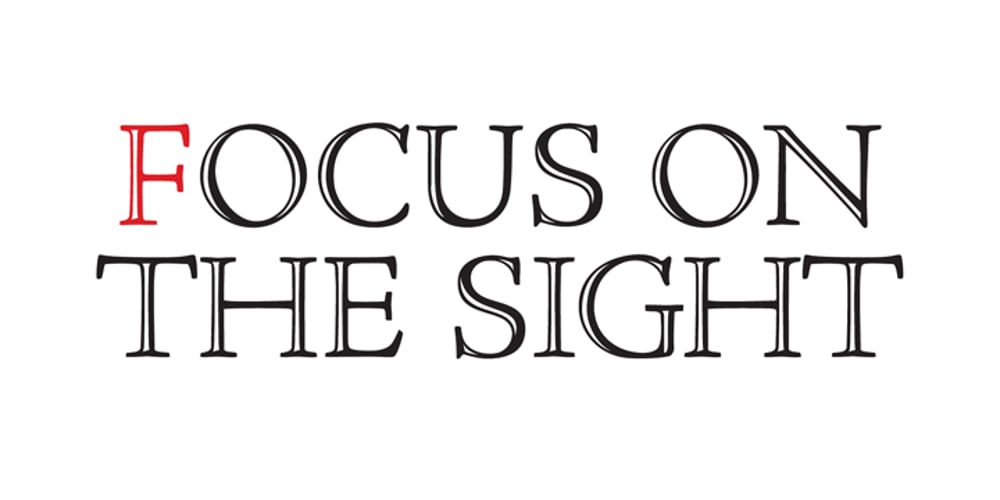
Vecchia
Vecchia font
Vecchia Font Family was designed by Jesus Barrientos and published by Talavera. Vecchia contains 1 styles and family package options. This font looks forward to the humanist venetian oldstyle flavor. With high contrast and nice modulation, it has low x height wich is ideal for reading and to design books or long texts. Vecchia has a calligraphic basis and counts with small caps, ligatures and open face titling capitals.